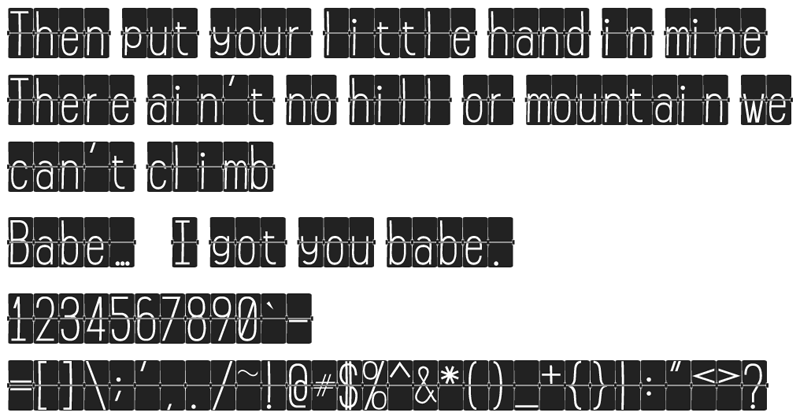
Font name: | Flip Clock |
Author: | Jeff Bensch |
Note by Jeff Bensch | |
Remember vintage flip clocks? Y'know, the clock that kept you up all night due to the 'CLICK!' every minute? Over and over...and over and over...time seemed to slow a bit as you waited for the next 'CLICK!' Time to relive it - again, and again and again. Free for personal use. Commercial License available here: https://www.creativefabrica.com/product/flip-clock-black/ https://www.creativefabrica.com/product/flip-clock-white/ |